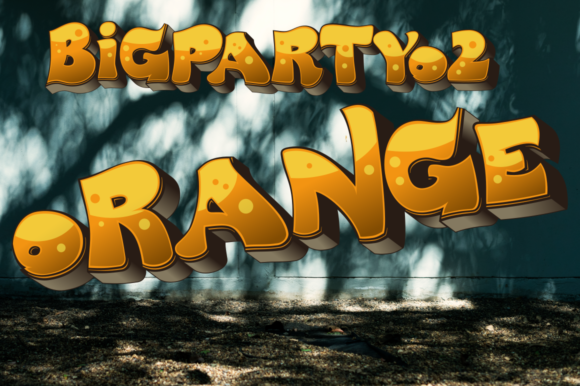
Get Ready to Party with BigPartyO2 Orange Font
Have you ever felt that rush of excitement when you stumble upon the perfect font for your next design project? It’s like finding the missing piece of a puzzle, and suddenly, everything falls into place. That’s exactly what happened when we discovered the BigPartyO2 Orange Font – a vibrant, 3D color font that’s sure to add a pop of fun to any design.
BigPartyO2 Orange Font Key Features
- Font Family: BigPartyO2 Orange Font is a unique, hand-drawn font designed to evoke the feeling of a vibrant party atmosphere.
- Resolution: Optimized for high-resolution displays, making it perfect for use in digital media, such as social media graphics, website headers, and more.
- Unique Characteristics: BigPartyO2 Orange Font features a bold, playful design with intricate details, making it ideal for creating eye-catching headlines and titles.
BigPartyO2 Orange Font Review
Overall, I think BigPartyO2 Orange Font is a decent font for those who want a bold, eye-catching look. ✨ It’s perfect for parties, celebrations, and other fun events where you want to make a statement. The font’s energetic and lively vibe is sure to grab people’s attention.
- ✨ Unique and playful design that’s sure to stand out
- ✨ Great for titles, headings, and other display text
- ✨ Supports a wide range of languages and character sets
However, there are some limitations:
- ⚠️ May not be suitable for formal or professional applications
- ⚠️ Can be difficult to read in small sizes or low-resolution contexts
- ⚠️ Limited availability of supporting fonts and styles
Overall, I’d say BigPartyO2 Orange Font is a fun and attention-grabbing font that’s perfect for certain types of projects. While it may not be the best choice for every application, it’s definitely worth considering if you want to add some excitement to your design.
Tips for Getting the Most Out of BigPartyO2 Orange Font
To get the most out of BigPartyO2 Orange Font, use it for:
- Eye-catching headlines and titles.
- Creating a fun and playful atmosphere.
- Adding a pop of color to your design.
BigPartyO2 Orange Font is commonly used for:
- Social media graphics.
- Party invitations and promotional materials.
- Children’s books and educational materials.
Alternatives to BigPartyO2 Orange Font
Great Vibes is a modern, elegant, and stylish font suitable for various designs, such as logos, branding, and advertising. It has a similar energetic and playful vibe to BigPartyO2 Orange Font but with a more refined and sophisticated look.
Comparison: Great Vibes is more versatile and can be used in a wider range of applications, whereas BigPartyO2 Orange Font is more suited for specific party and celebration-themed designs.
Oranienburg Font
Oranienburg is a beautiful, elegant, and highly legible font perfect for use in headings, titles, and large text. It has a similar warm and inviting feel to BigPartyO2 Orange Font but with a more classic and timeless look.
Comparison: Oranienburg is more suitable for formal and corporate designs, whereas BigPartyO2 Orange Font is more suited for casual and celebratory themes.
Montserrat is a modern, urban, and highly legible font ideal for use in headings, titles, and large text. It has a similar energetic and dynamic feel to BigPartyO2 Orange Font but with a more geometric and sleek look.
Comparison: Montserrat is more versatile and can be used in a wider range of applications, including tech and gaming designs, whereas BigPartyO2 Orange Font is more suited for party and celebration-themed designs.
Q: What is the recommended usage of BigPartyO2 Orange Font?
BigPartyO2 Orange Font is ideal for use in promotional materials, such as posters, flyers, and social media graphics. It’s also suitable for use in digital applications, such as website headers, buttons, and other interactive elements.